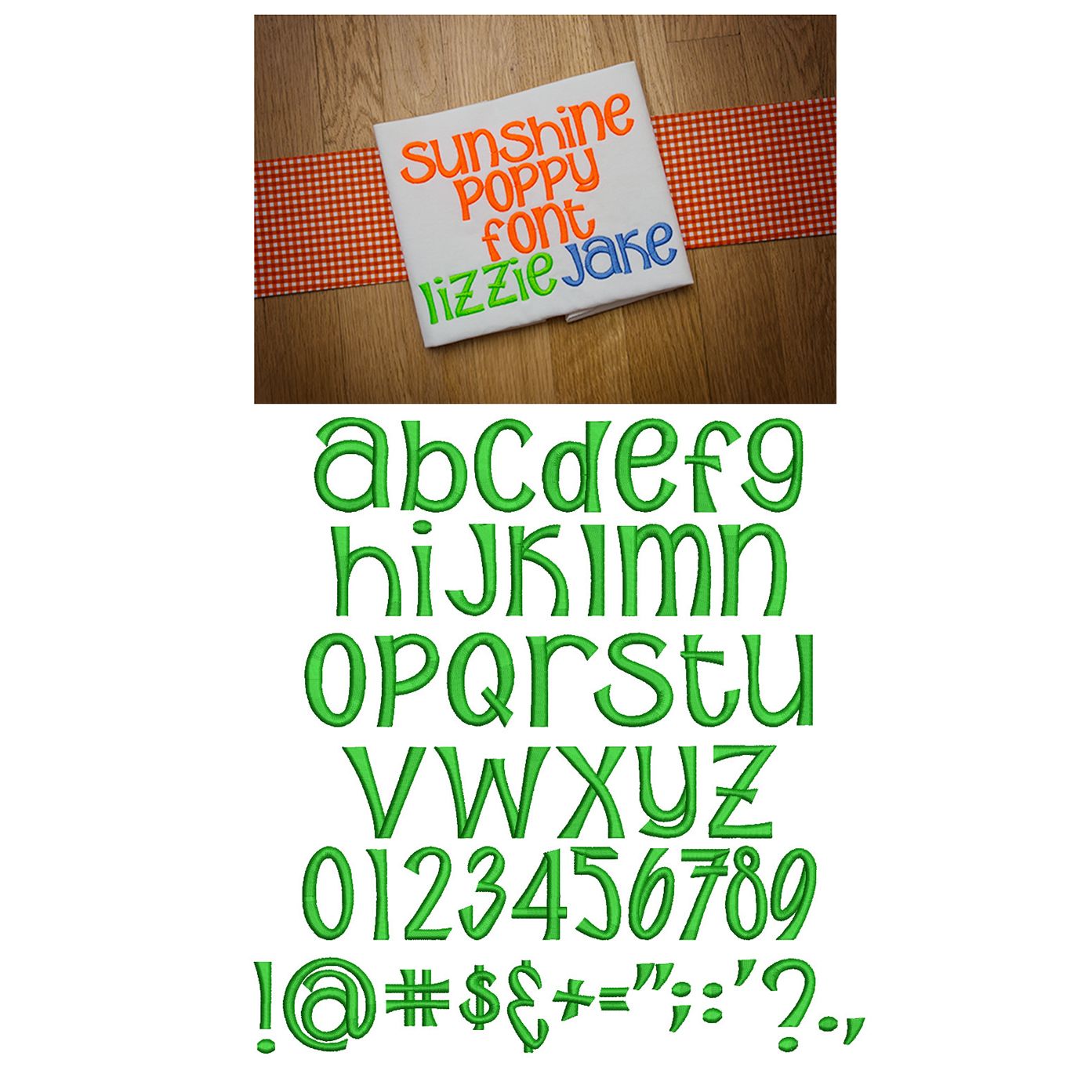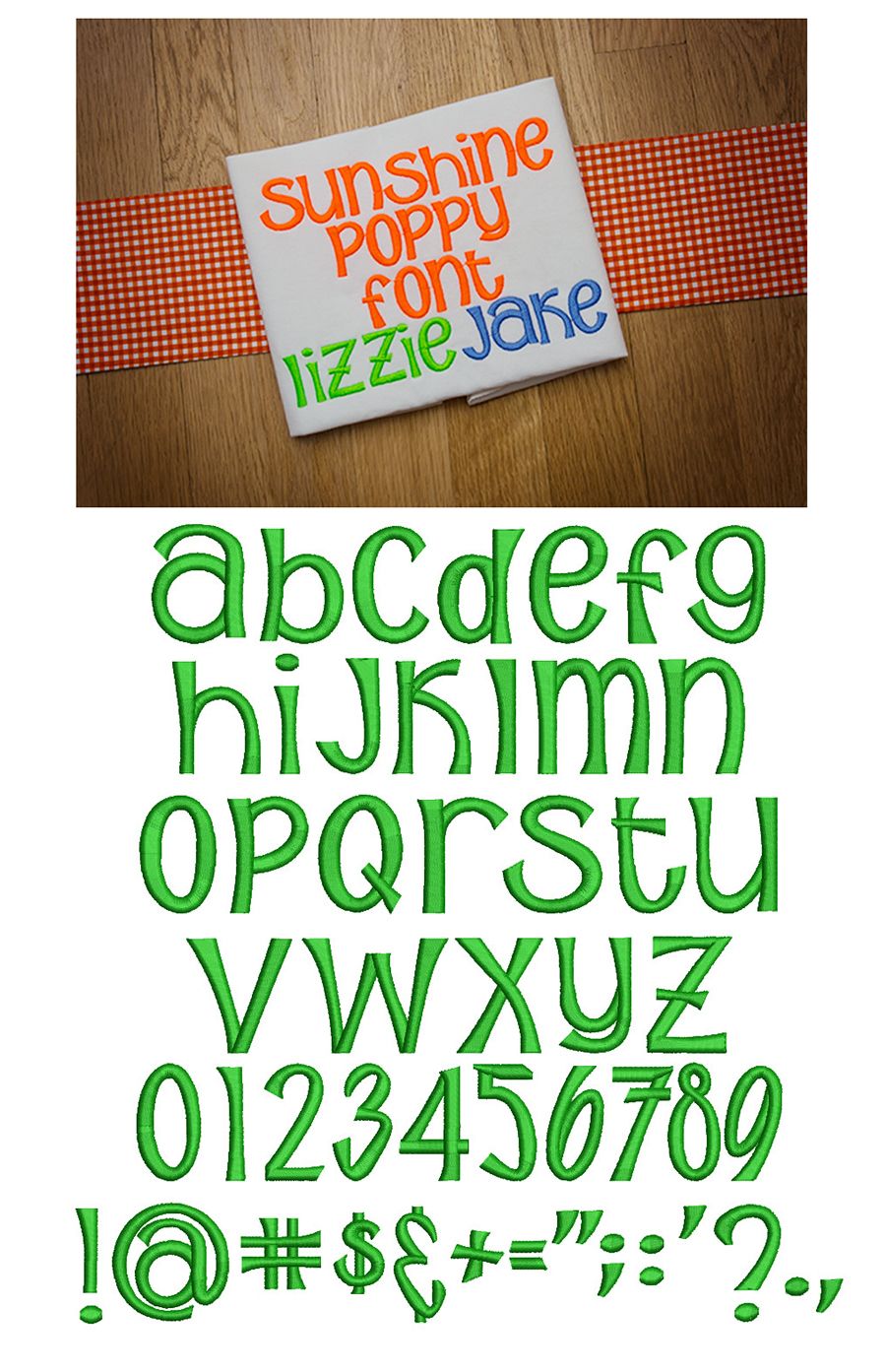
Sunshine Poppy Satin Stitch Embroidery Font
Features a whimsical font with quirky letters..nice and bold! This is a unicase font so there is only 1 of each letter. Includes numbers and characters. All of our fonts are 100% manually digitized to ensure the highest quality.